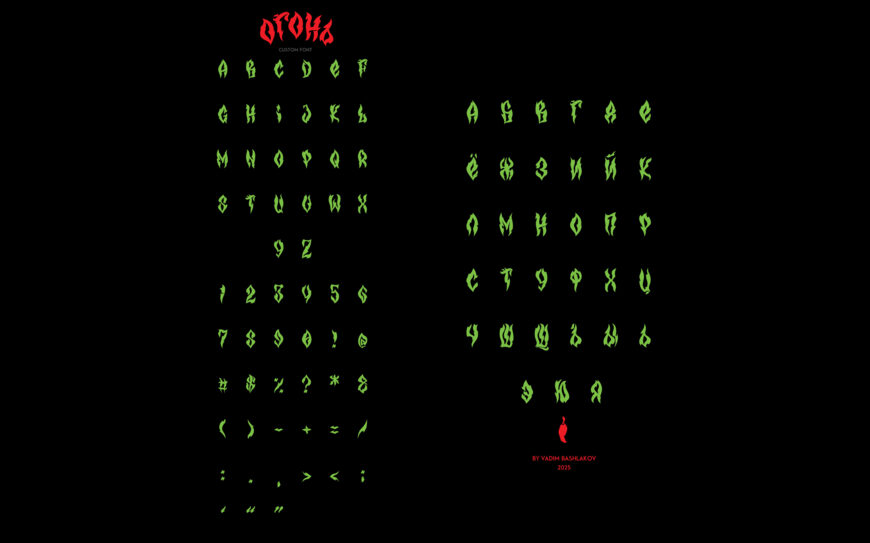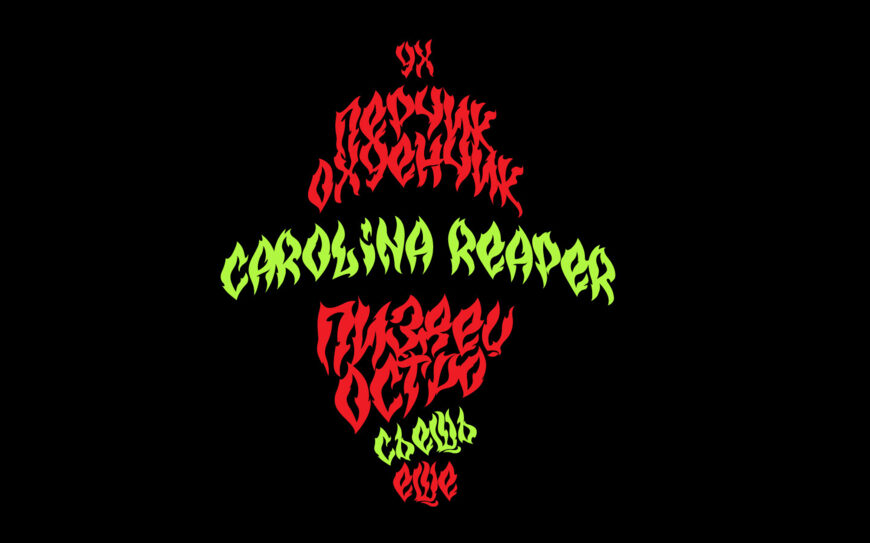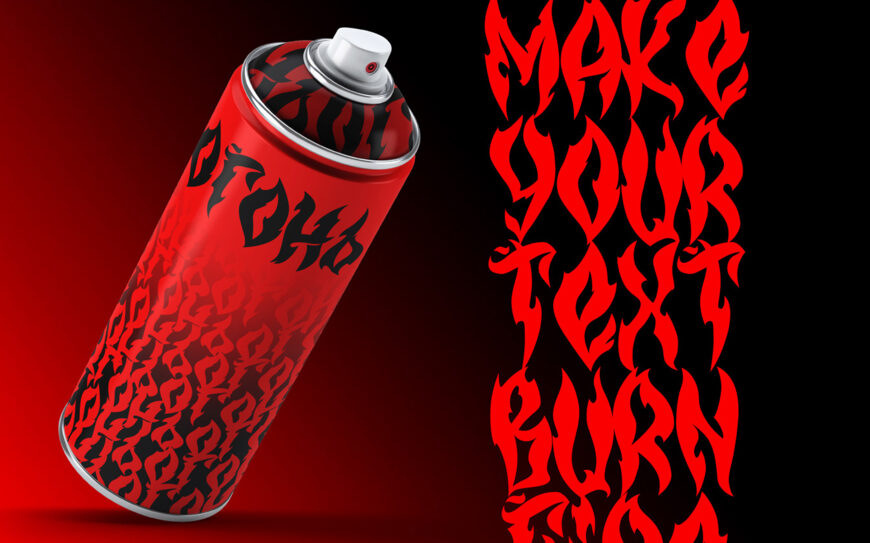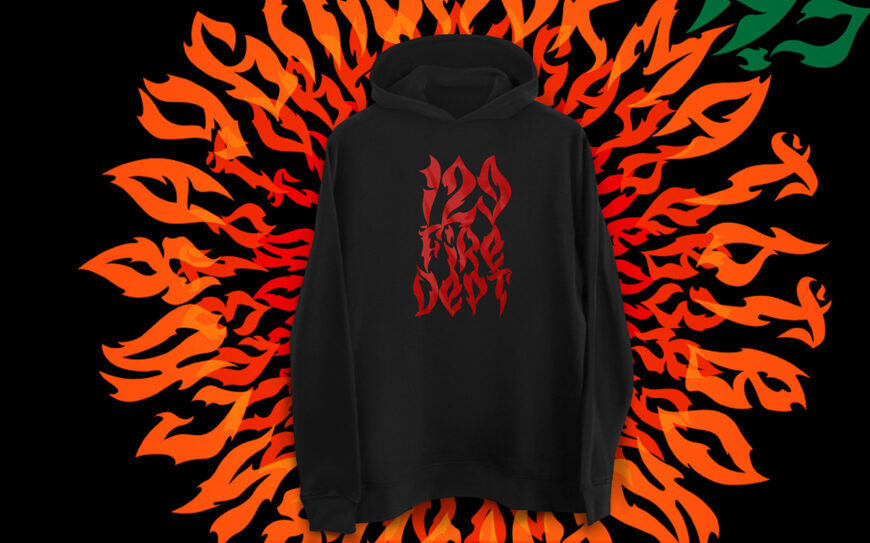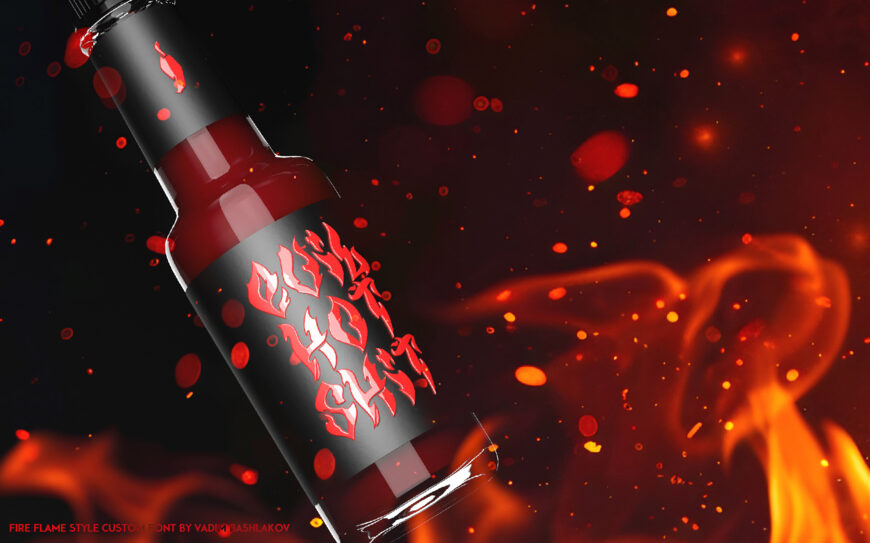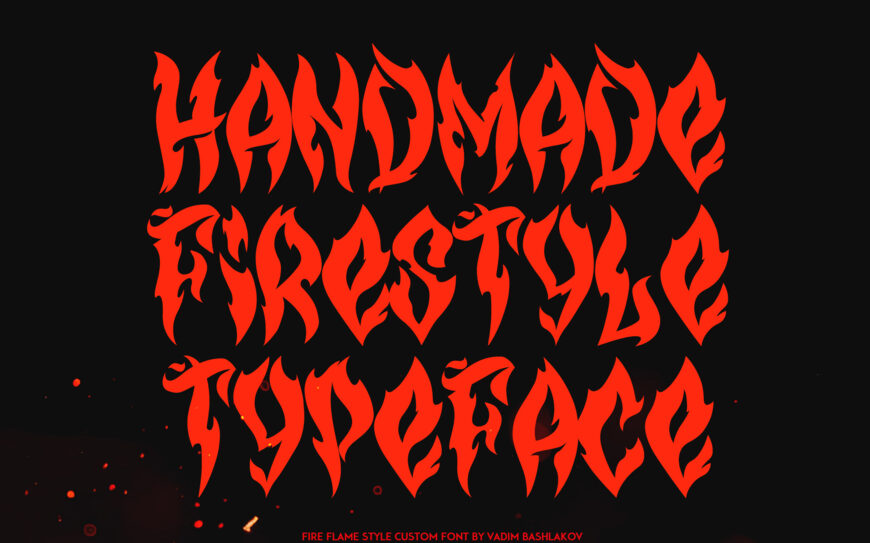
Fireline Font
Fireline is a fiery, hand-crafted display typeface by Vadim Bashlakov that mimics dancing flames and sharp, flicker-like edges. Blending graffiti style with blackletter calligraphic structure, its sharp, energetic letterforms give text an intense, fiery aesthetic.
Supporting both Latin and Cyrillic character sets alongside numbers and symbols, this bold, aggressive font is built for high-impact branding—ideal for hot sauce labels, streetwear apparel, spray cans, and poster designs.